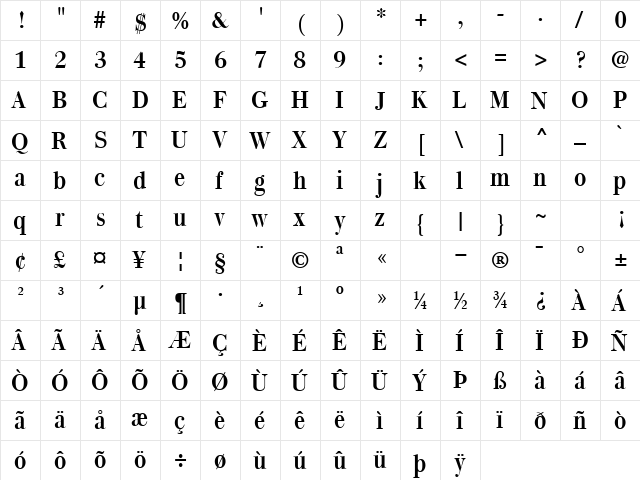
GE Quartz Regular
Design Context for GE Quartz Typeface
GE Quartz is a composed and adaptable typeface that performs quietly and consistently across a wide range of design contexts.